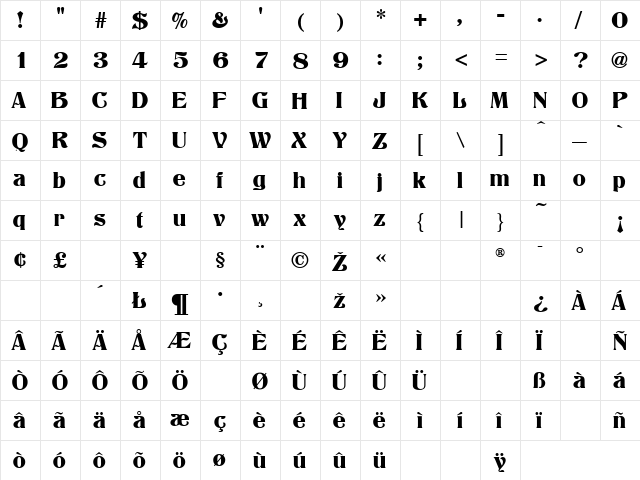
Titania Regular Font Preview
Titania Regular
Titania Regular Font Details
Design Context for Titania Typeface
Titania is a composed and adaptable typeface that performs quietly and consistently across a wide range of design contexts.
Pro Tip: Pair Titania with a font of contrasting weight or personality to build a more expressive typographic hierarchy.